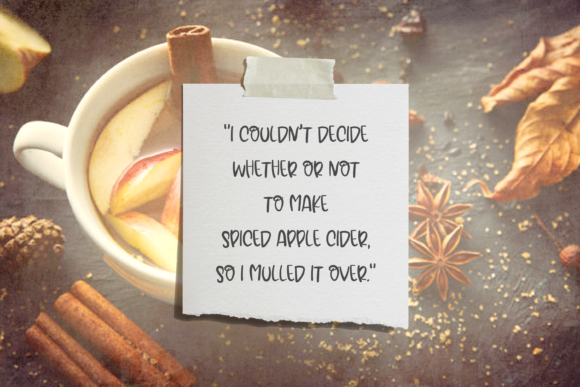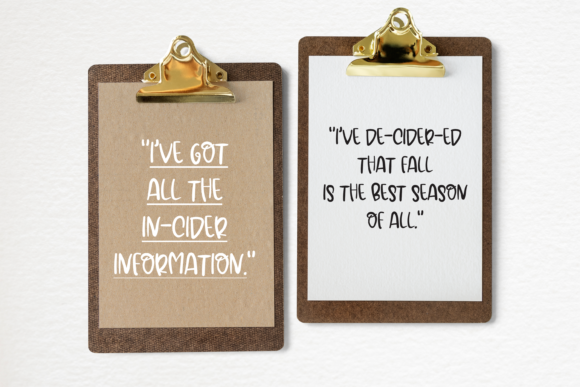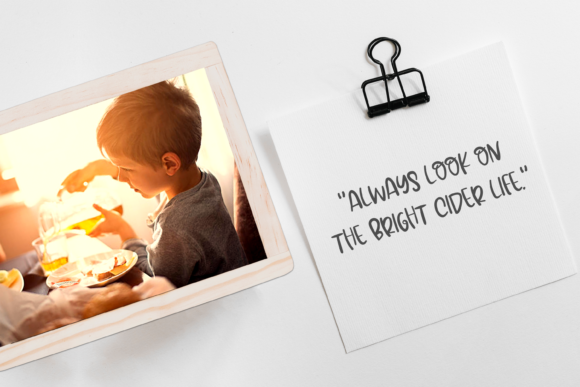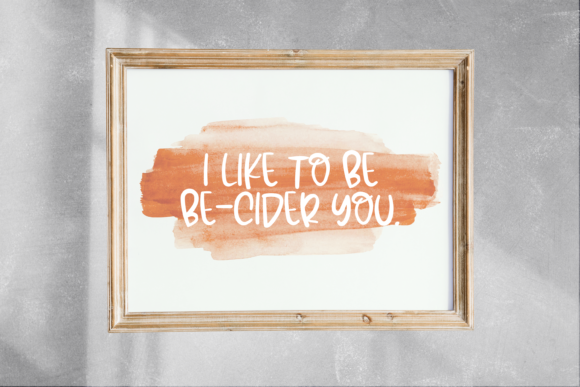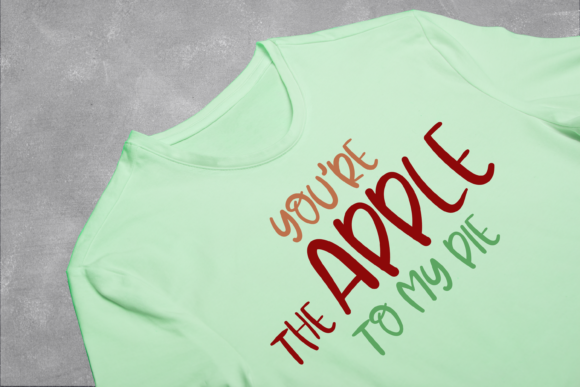
Apple Cider Font
About Apple Cider Font
Apple Cider is a cute and simple handwritten font. Its natural and unique style makes it incredibly fitting to a large pool of designs. The only limit is your imagination!